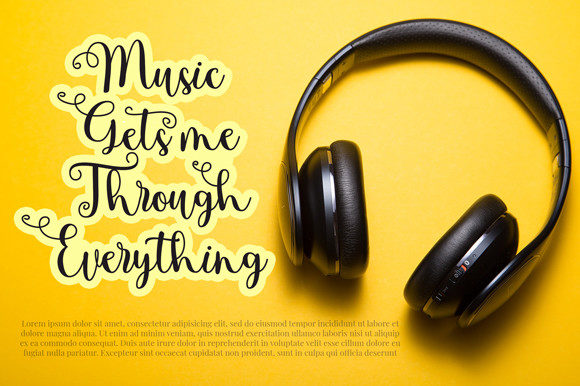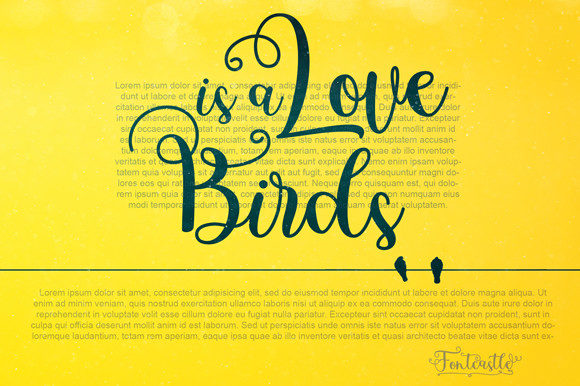
About Hosty Klotzy Font
Hosty Klotzy is a chic, refined script font that emanates sophistication and elegance. Its stylish alternates and ligatures make this font the perfect match for any project. This font is PUA encoded which means you can access all of the glyphs and swashes with ease!